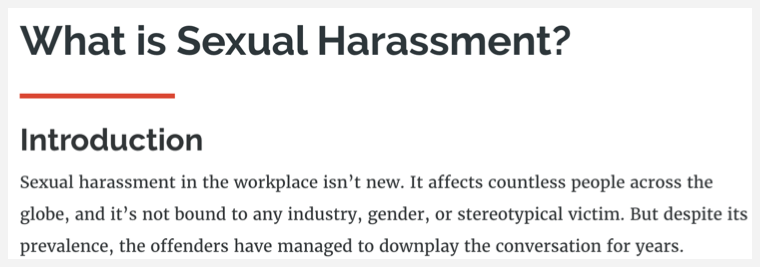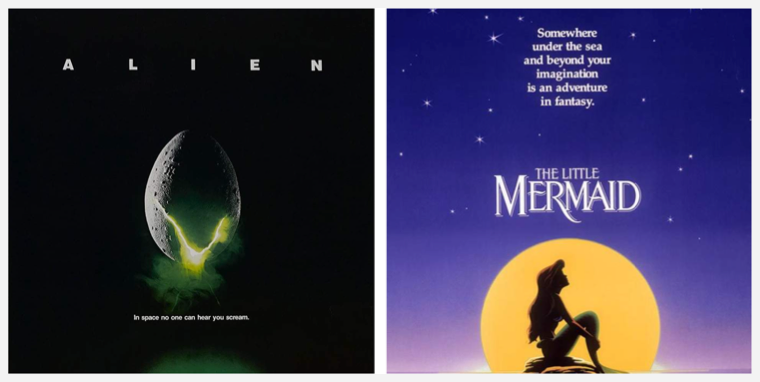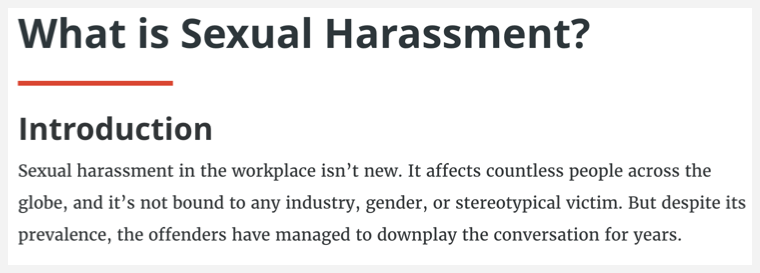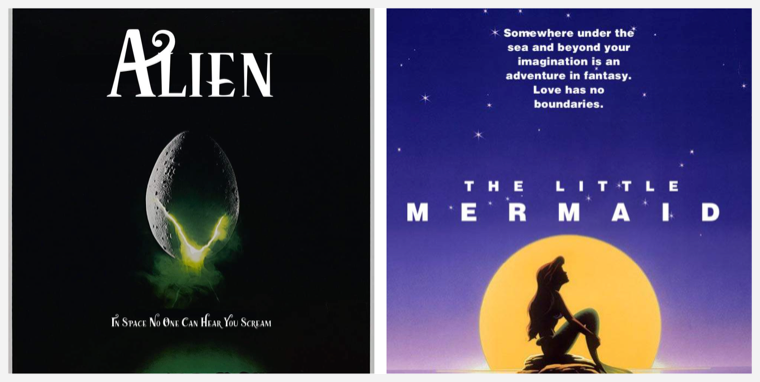
Finding Fonts That Fit Your E-Learning
Fonts matter.
As a content creator, that shouldn’t come as a surprise to you, but have you ever taken the time to think about how much font matters?
The font is the gateway to your content. It sets the mood before your learners even start reading. In less than a second, subconsciously your readers are preparing themselves to get serious or be entertained. When there’s a mismatch between your font choice and your content, it causes cognitive whiplash that can distract or, worse, lose your audience entirely.
Font Sets the Tone
Let’s take a look at an example of what I mean using a couple of well-known movie posters.
ALIEN and The Little Mermaid couldn’t be more different, and their posters reflect that. No one is going to pick ALIEN and expect a lighthearted romp. Conversely, viewers of The Little Mermaid wouldn’t sit down expecting creeping dread and horror.
But what if things were different?
With nothing more than a font swap, the expectations for these two films are … well, maybe not changed completely, but certainly confused. The ornamental Little Mermaid font doesn’t pair at all with the stark graphics of the ALIEN poster. And ALIEN’s wide-spaced Helvetica Black is incongruous given the pastel colors and uplifting tagline of The Little Mermaid.
But that’s movie posters, you say. Of course font matters when it’s the focus of the design.
This is true, but that doesn’t mean you have to use Times New Roman for all your courses either. It’s possible to get creative with your font choice without sacrificing your content or readability. You just need to keep the following guidelines in mind.
Let the Subject Matter Be Your Guide
While you can just start creating with the default font for any tool, it’s usually the default font because it’s decidedly neutral. It’s not going to clash with your content, but it’s not going to highlight it either.
How can font choice highlight your content? Let’s look at a couple of examples to see what I mean.
This image is taken from a course created in Rise 360 using the built-in font Raleway.
Now, Raleway isn’t a bad font by any stretch. But does it convey the gravity that the subject matter necessitates? Between the ornamental capital W, the relatively light line weight, and the overall softness of the curves, its touches of whimsy are a bit like a lawyer using a kitten filter in a virtual legal disposition. The information might get across, but readers could be distracted by the font choice, or at worst, question the credibility of you or the content.
Let’s switch up the font and see how that changes things.
Here’s the same content presented with a title and header that uses Open Sans. The two fonts, Raleway and Open Sans, are both sans serif fonts. So what makes Open Sans a better fit? It’s a much weightier, no-nonsense font that’s perfect for conveying serious information in an easy-to-read way.
Use Ornamental Fonts Sparingly
Decorative typefaces are an easy way to provide immediate impact to your content. It’s why you don’t see Times New Roman selected for movie posters—the text is meant to have an emotional impact even before it’s read.
That’s why you should only use ornamental fonts sparingly, preferably for a title screen or at the beginning of a new section, so they don’t distract your learner. It’s also important to remember that ...
Font Choice Can Impact Clarity
Ornamental fonts impede understanding. If your learner has to try and decipher what’s written, then you’ve already pulled their focus away from your content. Plus, over-stylized fonts are difficult for those with dyslexia to read.
Let’s Recap
Font choice helps your readers engage with your content before they’ve even started reading. Think of it as the marquee movie poster that draws them in and prepares them for what’s next. When choosing a font, however, you’ll need to keep a few things in mind.
1. Let the content guide your font choice. Using an overly ornamental font for serious content or a plain font for more whimsical projects can be jarring and cause dissonance for your learner.
2. Ornamental fonts are OK, but only if you use them with a light touch.
3. Your font choice impacts readability. When in doubt, use a sans serif font to maximize accessibility.